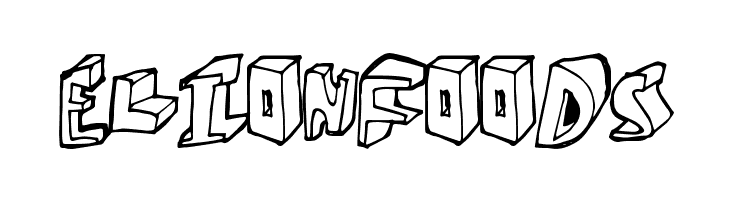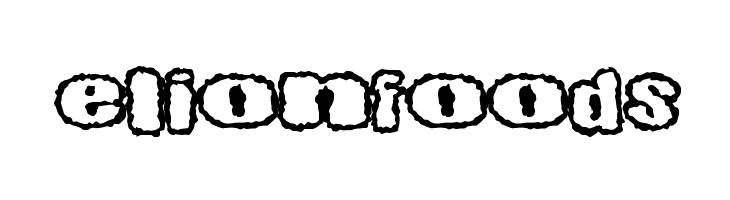
• ToxicPowers
A bold, textured font with a dynamic, graffiti-like style.
• MoreDimension
A bold, three-dimensional font with a playful and dynamic style.
• PopularCulture
A bold, playful font with a retro pop culture vibe.
• PrincessCake
An elegant, ornate script font with flowing swirls and flourishes.
• ExtraHighs
A playful, whimsical script font with smooth, interconnected letters.
• TurnUp
A bold, distressed font with a rough, textured appearance and dynamic style.
• HighZombie
A dynamic, edgy handwritten font with sharp, angular strokes and a sense of movement.
• LittleSpooky
A playful, bold font with irregular outlines and a hand-drawn aesthetic.
• WhiskyLickers
A bold, dynamic brush script font with expressive strokes and artistic flair.
• ZombieTreats
A bold, brush-stroke font with a raw, energetic style.